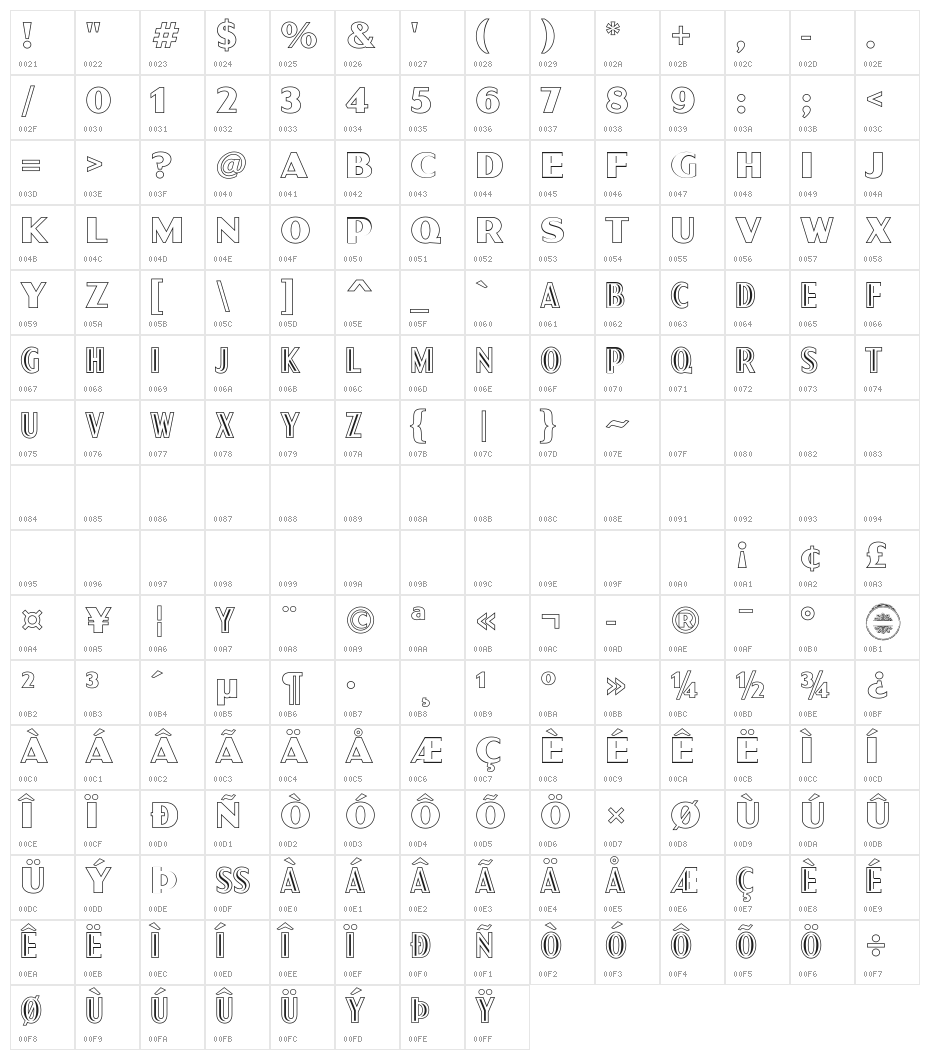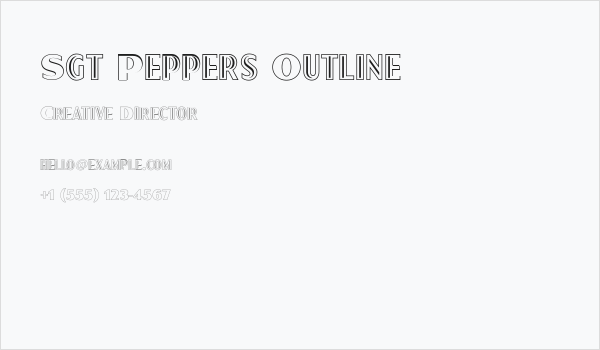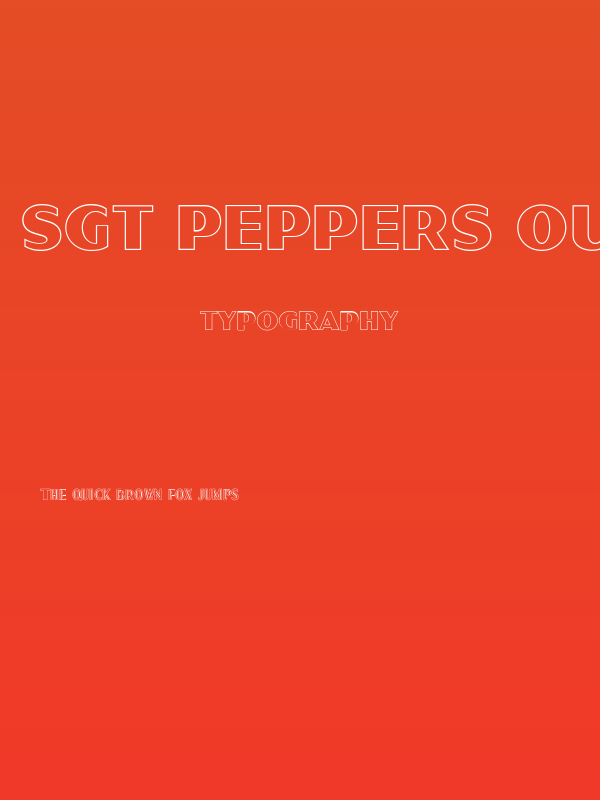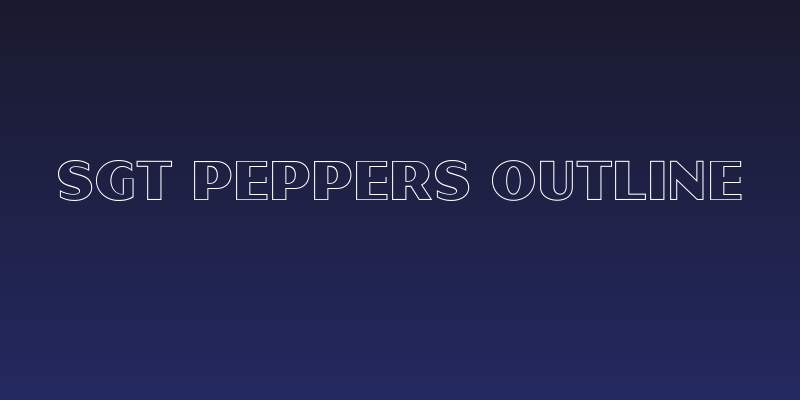
Sgt Peppers Outline Font
Sgt Peppers Outline Description
This font features a bold, outlined style that gives it a striking and modern appearance. The uppercase letters are designed with a consistent thickness, creating a uniform look across the alphabet. The numbers and special characters maintain the same outlined aesthetic, ensuring a cohesive design throughout. The font's clean lines and geometric shapes make it highly legible, even at smaller sizes. Its bold outline adds a layer of depth and dimension, making it suitable for eye-catching designs. The overall style is both contemporary and versatile, allowing it to be used in a variety of creative projects.